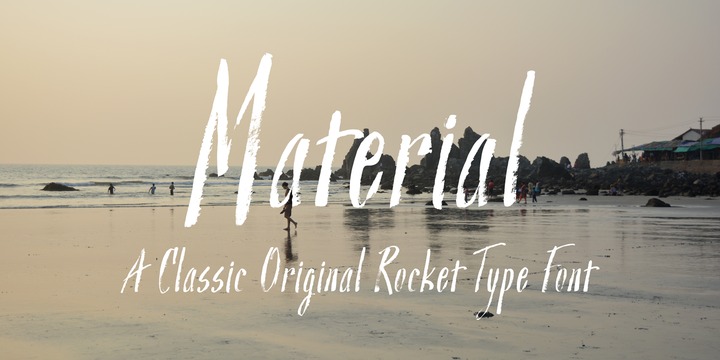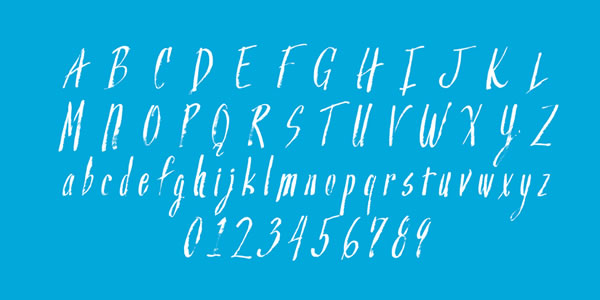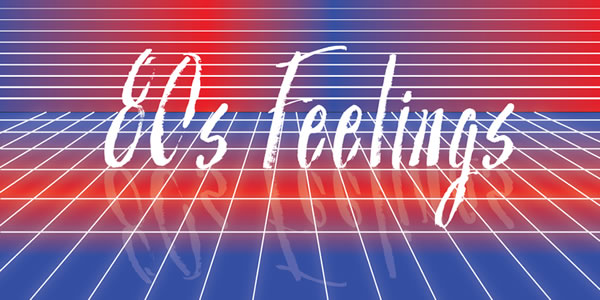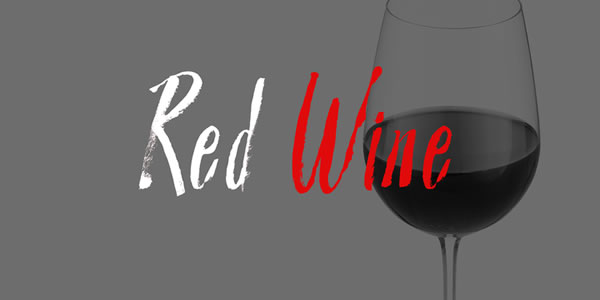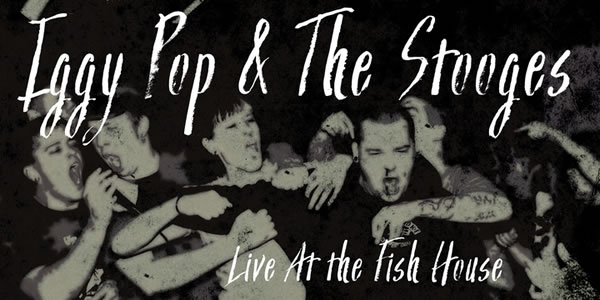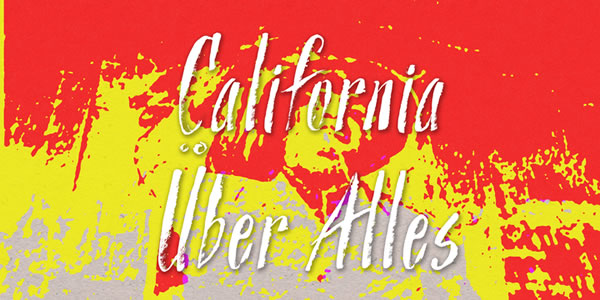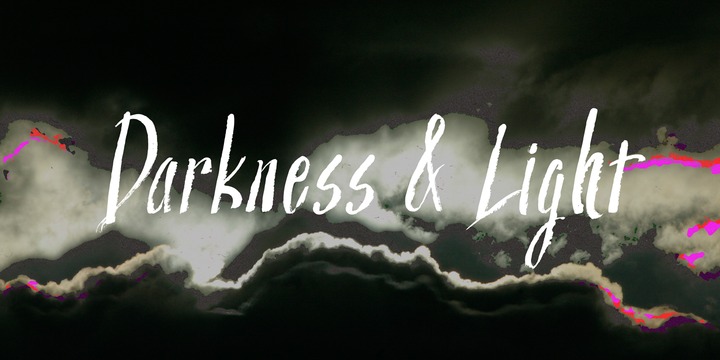
Material Regular Font
About Material Regular Font
Who made this mess! Material is quintessential paint brush font fun. A little bit grunge, little bit 80s chic. Material is rated R for adult content and violence, violence to the american alphabet. This font soars just like KITT in Knight Rider. Part virtuoso part New Kid On The Block. Feels like you’re painting those letters on yr’ own self!
Anytime you need to make a little mess and really express yourself choose Material. This font will really give your designs some distressed authenticity.
Material is great for billboards, t shirts or video productions. It’s full of smudgy love, it’s loud and is likely to offend but what better way to give your designs that highly sought after ‘edge’.